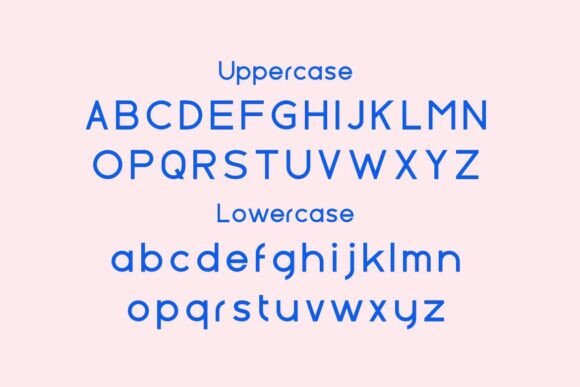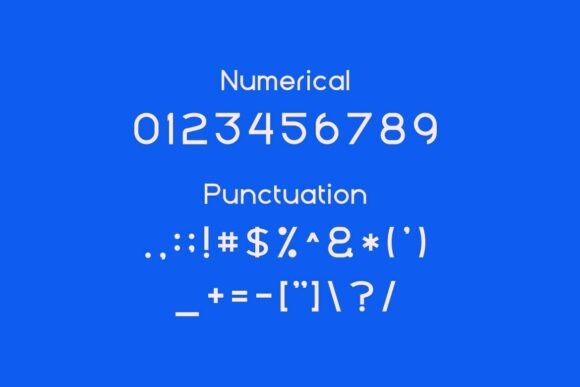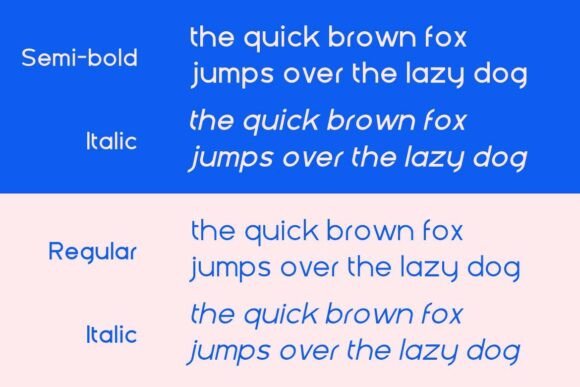
The Designer’s Delight: Exploring the Garuh Font
I’ll never forget the time I was working on a branding project for a trendy new coffee shop. My client was particular about the font, wanting something modern, clean, and highly legible. I scoured the internet, tried out a dozen fonts, but nothing seemed quite right. That was until I stumbled upon the Garuh font. Its crisp lines, balanced proportions, and smooth terminals immediately caught my attention. I knew I had found the perfect fit.
A Personal Review of Garuh Font
- ✅ Clean Geometry: Garuh’s modern sans serif design makes it perfect for projects that require a fresh, contemporary look.
- ✅ Purposeful Simplicity: The font’s simplicity ensures it’s highly legible, even at smaller sizes.
- ✅ Versatility: From branding and editorial layouts to UI/UX, packaging, and corporate communication, Garuh adapts seamlessly.
- ✅ OpenType Features: Garuh supports a range of OpenType features, including stylistic alternates and glyphs, giving designers plenty of creative options.
While Garuh is an excellent font, there are a few minor considerations to keep in mind:
- 🤔 Limited Character Set: Some users have noted that Garuh’s character set could be more extensive, particularly for non-English languages.
- 🤔 Not Ideal for Body Text: While Garuh is highly legible, its clean and modern design might make it less suitable for lengthy body text. Consider pairing it with a serif font for better readability.
The Story Behind Garuh
Garuh was designed with the goal of creating a modern sans serif font that balances simplicity with sophistication. Inspired by the latest design trends, the creator aimed to produce a font that would be both versatile and highly legible. The result is a font that feels both contemporary and timeless.
| Font Name | Garuh Font |
| Author | Artiveko |
Q: What is Garuh font best used for?
A: Garuh font is best used for projects that require a modern, clean, and highly legible sans serif font. It’s perfect for branding, editorial layouts, UI/UX, packaging, and corporate communication.
Q: Is Garuh suitable for body text?
A: While Garuh is highly legible, it might not be the best choice for lengthy body text. Consider pairing it with a serif font for better readability.
Q: Does Garuh support OpenType features?
A: Yes, Garuh supports a range of OpenType features, including stylistic alternates and glyphs. This allows designers to experiment with different creative options.